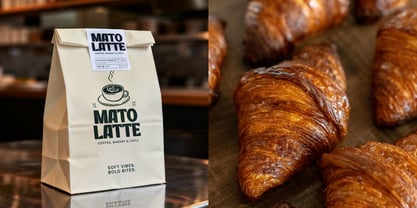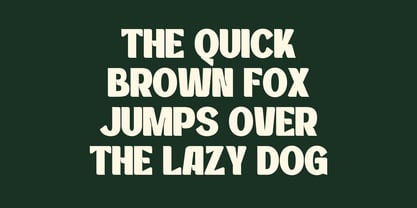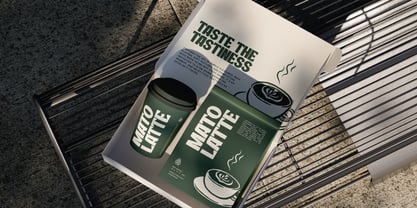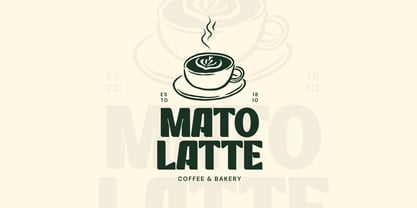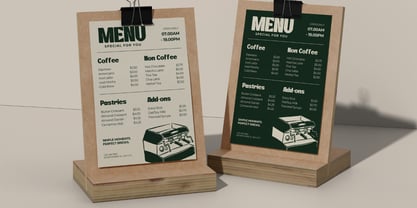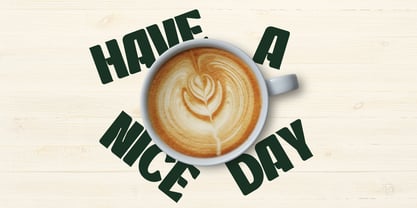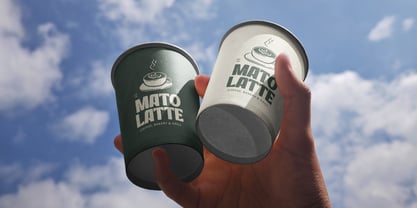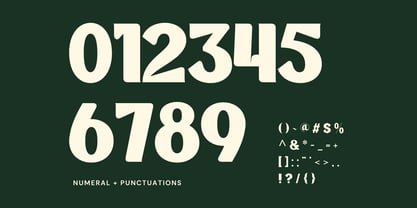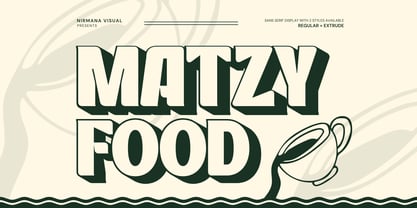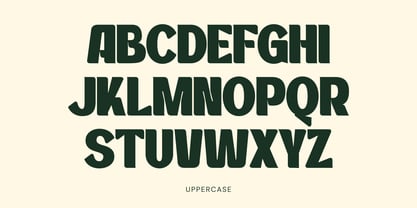
Matzy Food
by Nirmana Visual
The Matzy Food Font Family was designed by Sigit Dwipa and published by Nirmana Visual. Matzy Food contains 2 styles and family package options. More about this family
Matzy Food is a bold and flavorful display font crafted for standout culinary branding. Designed with strong extrude details, it delivers a dimensional, eye-catching look perfect for restaurant logos, food packaging, street food posters, menu boards, and promotional campaigns. Matzy Food blends playful curves with confident strokes, creating a tasty visual identity that feels modern, energetic, and irresistibly delicious. Perfect for brands that want to look fresh, bold, and unforgettable.